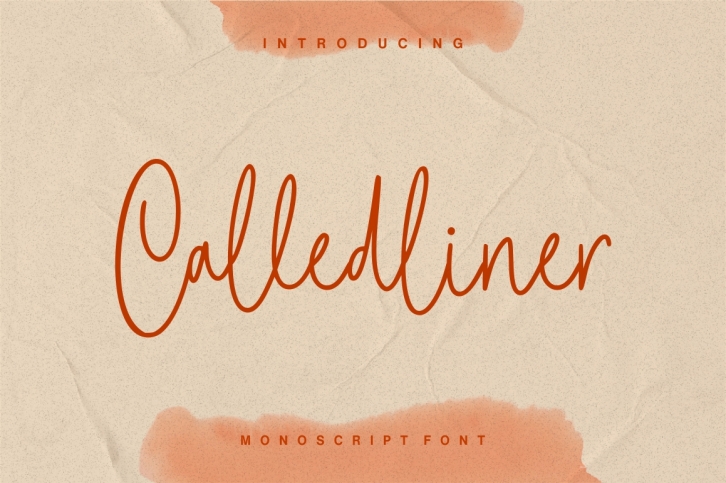
Calledliner is a great font that was designed by Stringlabscreative. Imagine the amount of combinations you can create using this font! The archive is 5.34 MB and it was released on October 13, 2019. Calledliner looks beautiful on wedding invitations, greeting cards, logos, posters, labels, t-shirt designs, logos, business cards and is perfect for use in ink or watercolor works, fashion, magazines, packaging and food menus, children's books and more!